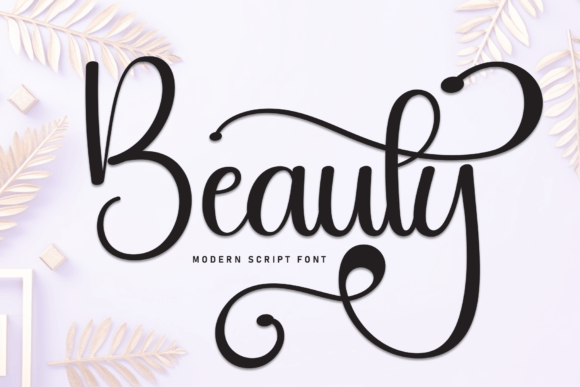
Unleashing Your Creativity with Beauty Font
Remember the moment when you finally found the perfect font to match your brand’s personality? It’s a feeling like no other, isn’t it? You’re browsing through your font library, scrolling through endless options, and then, suddenly, it hits you – a font that perfectly captures the essence of your design. For designers, this moment is a game-changer, and it’s exactly what Beauty Font promises to deliver.
Beauty Font is a stylish handwritten script font that exudes elegance and charm. Its fluid strokes and natural flow create a captivating, sophisticated look that’s perfect for adding a personal touch to invitations, branding, or social media. Whether you’re looking to make a lasting impression or simply want to add some warmth to your designs, Beauty Font is a valuable asset for any designer. With its unique charm, it’s no wonder why designers are falling in love with this beautiful font.
Beauty Font Key Features
- Unique Characteristics: Beauty Font features a unique blend of elegant and modern design elements, including intricate flourishes and subtle texture, making it suitable for a wide range of applications.
- Language Support: Beauty Font supports a broad range of languages, including Latin, Cyrillic, and Greek alphabets, making it a versatile choice for global branding and design projects.
- Font Variations: Beauty Font is available in multiple styles, including Regular, Bold, Italic, and Bold Italic, allowing designers to choose the perfect font variation to match their project’s tone and style.
Beauty Font Review
Overall, I was quite impressed with the Beauty Font. ✨ It’s a beautiful, elegant font that’s perfect for any project that requires a touch of sophistication. The font is highly customizable, with a wide range of options for adjusting the size, color, and style. The kerning and spacing are also well-done, making it easy to read even at small font sizes.
- ✨ Beautiful, elegant design that’s perfect for sophisticated projects
- ✨ Highly customizable with a wide range of options
- ✨ Good kerning and spacing for easy reading
- ✨ Supports a wide range of languages
- ⚠️ Not suitable for projects that require a more playful or casual tone
Overall, I would recommend the Beauty Font for projects that require a touch of elegance and sophistication. While it may have some limitations, the benefits far outweigh the drawbacks. With a little extra effort, you can create beautiful, professional-looking designs that will impress your audience.
Beauty Font can be used in a variety of design projects, including:
- Social media graphics and ads
- Marketing materials, such as brochures and